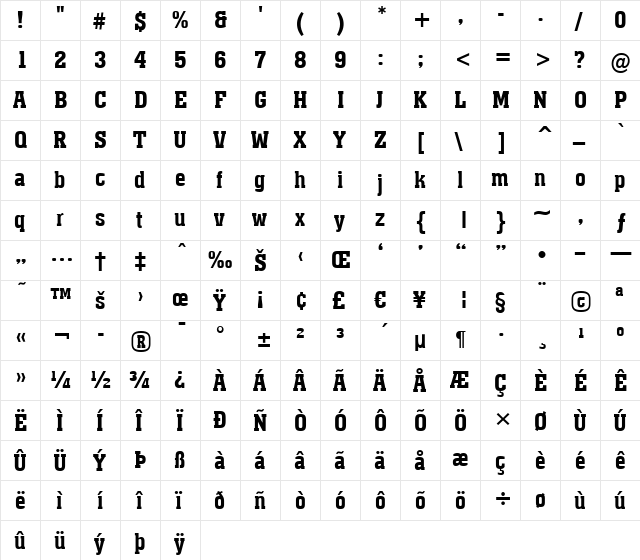
a_Kena Medium
| Designer | W.Chufarofsky & M.Slutsker |
Design Context for a_Kena Typeface
a_Kena offers clean, dependable letterforms without strong stylistic allegiance, making it a practical choice for designers who need flexibility.